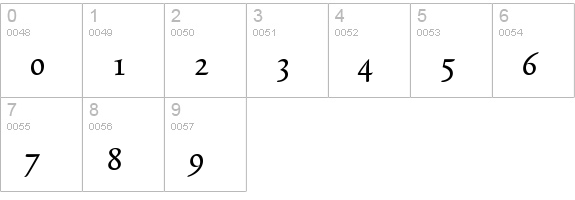
TriniteNo3-RomanCond is a remarkable font that exudes elegance and sophistication. With its sleek and slender design, this font is perfect for adding a touch of sophistication to any project, whether it be a logo, website, or printed material. Featuring clean lines and a modern yet timeless aesthetic, TriniteNo3-RomanCond effortlessly captures attention and leaves a lasting impression. Its condensed form adds a unique element to the typography, making it ideal for projects that require a sleek and compact appearance. One of the most appealing aspects of TriniteNo3-RomanCond is that it is available for free. That's right, this stunning font can be downloaded at no cost from FontsMarket.com, making it accessible to designers and creatives of all levels. With its free availability, TriniteNo3-RomanCond eliminates any barriers to creating exceptional designs. The versatility of TriniteNo3-RomanCond is another reason why it stands out from the crowd. It can be used in a wide range of design applications, from branding and advertising to editorial and packaging. No matter the project, this font effortlessly adapts to various styles and contexts, adding a touch of professionalism and refinement. In terms of readability, TriniteNo3-RomanCond excels. Its carefully crafted letterforms ensure that each character is legible, even at smaller sizes. This makes it an excellent choice for body text or any situation where clarity is essential. Whether you are a professional designer or an aspiring creative, TriniteNo3-RomanCond is a font that deserves a place in your typographic toolbox. Its combination of elegance, versatility, and accessibility make it a valuable asset for any design project. So why wait? Head over to FontsMarket.com and download TriniteNo3-RomanCond for free today.